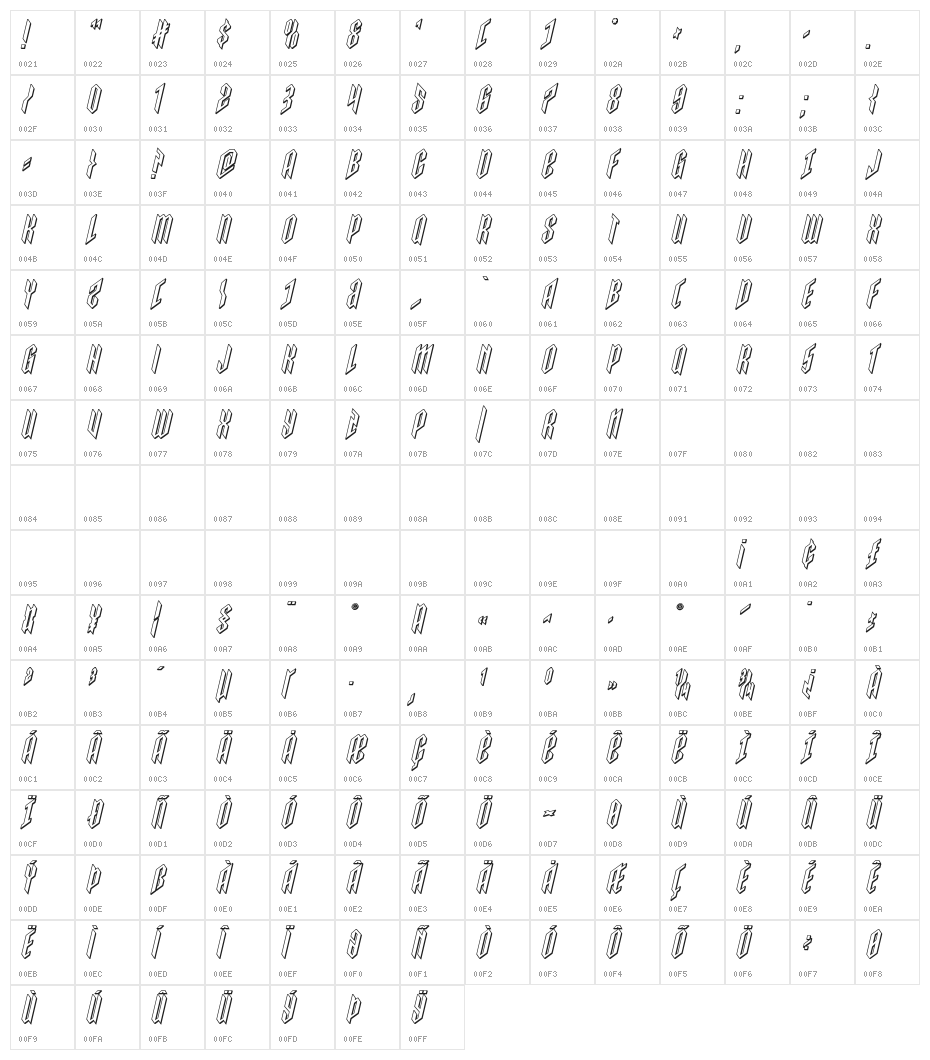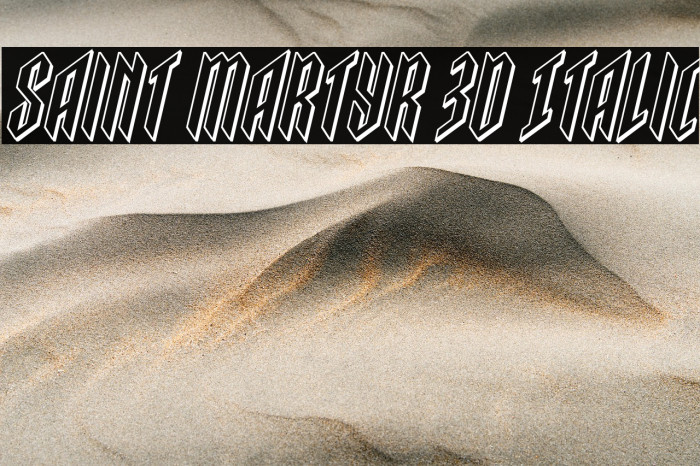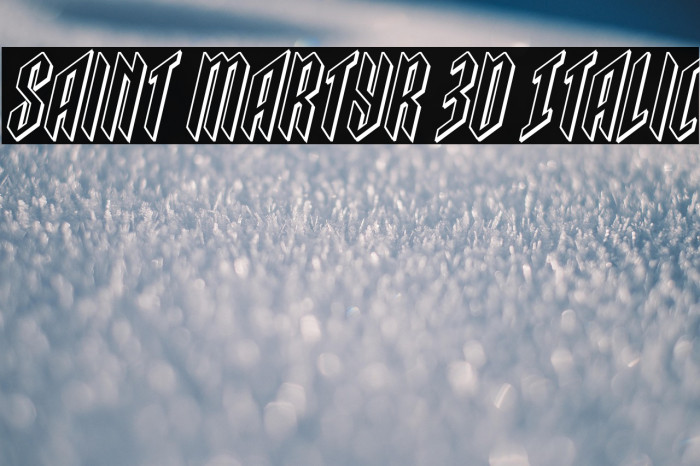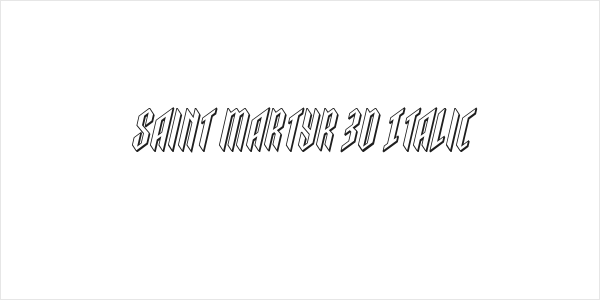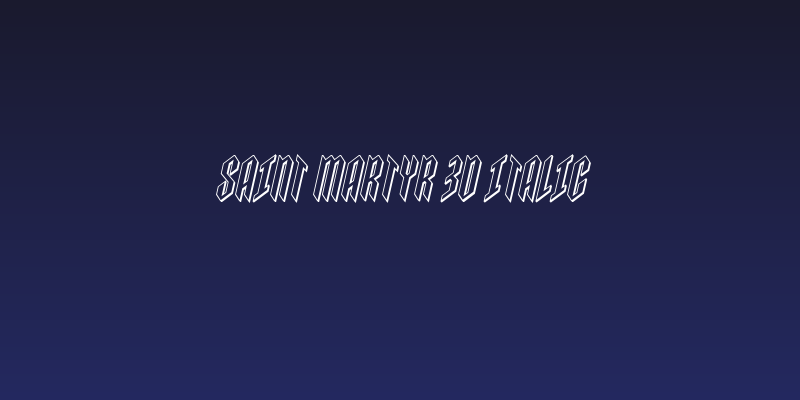
Saint Martyr 3D Italic Font
Saint Martyr 3D Italic Description
This font features a bold, three-dimensional design with an italic slant, giving it a dynamic and eye-catching appearance. The characters are outlined with a thick black border, creating a strong contrast against the white interior. The angular, geometric shapes of the letters contribute to a modern and edgy aesthetic. The uppercase and lowercase letters maintain a consistent style, with sharp edges and a slightly condensed form. Numbers and special characters are designed to match the bold, impactful style of the alphabet, making this font suitable for attention-grabbing headlines and creative projects.